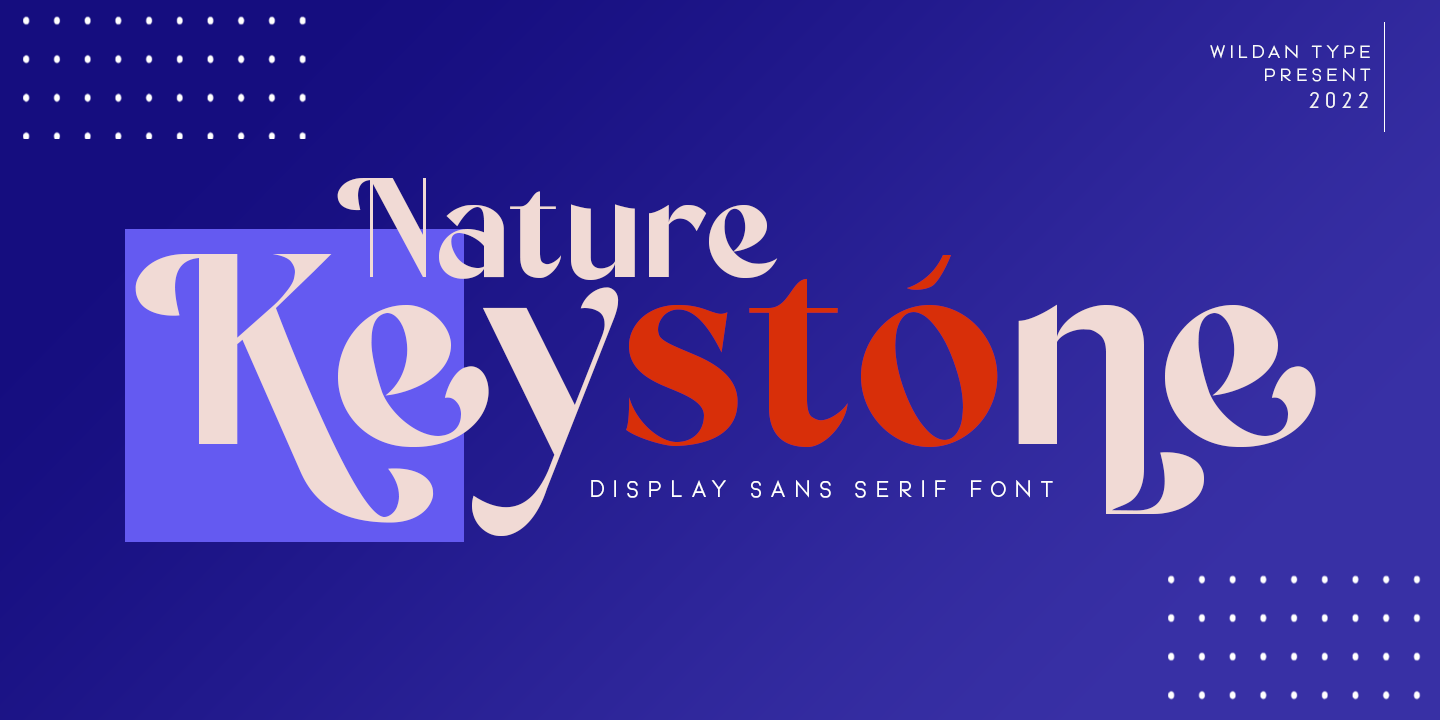
Nature Keystone Font is perfect for organic food packaging, eco-friendly brand identities, outdoor adventure gear, environmental campaign materials, botanical magazine layouts, sustainable fashion labels, national park signage, wildlife conservation posters, green technology companies, and natural wellness product branding.
Nature Keystone Font is exciting because it captures the authentic essence of the natural world through thoughtfully designed letterforms that evoke organic growth and environmental harmony, creating an immediate connection between brands and nature-conscious consumers. This remarkable typeface embodies the perfect balance between rustic charm and modern functionality, making it an essential tool for designers committed to sustainable and earth-friendly visual communications.
The Nature Keystone Font family includes diverse variations such as Regular, Bold, Light, Rough, Textured, Outline, Shadow, Condensed, Extended, Handwritten styles, and specialized organic decorative elements, providing complete design flexibility for any nature-inspired creative project.
Nature Keystone Font represents a revolutionary approach to eco-conscious typography, delivering authentic natural aesthetics for projects that celebrate environmental awareness and outdoor lifestyle. Its distinctive organic character structure makes it particularly effective for brands seeking to establish genuine connections with environmentally conscious audiences.
The earthy appeal of Nature Keystone Font makes it ideal for organic farms, eco-tourism companies, renewable energy firms, outdoor equipment manufacturers, environmental nonprofits, and sustainable lifestyle brands requiring authentic natural communication. Its grounded presence ensures memorable brand recognition among eco-conscious consumers.
Design professionals appreciate how Nature Keystone Font Free Download provides immediate access to premium earth-inspired typography that transforms conventional designs into compelling natural experiences. The font's comprehensive character set supports diverse environmental messaging while maintaining its authentic organic appeal.
Nature Keystone Font's advanced features include contextual alternates, natural ligatures, and organic styling options that enhance the font's environmental character. These eco-friendly elements enable designers to create powerful layouts that resonate with nature-loving audiences and outdoor enthusiasts.
The adaptability of Nature Keystone Font extends beyond traditional applications, proving equally effective for eco-friendly mobile apps, sustainable e-commerce platforms, environmental blog headers, green social media campaigns, and outdoor adventure content. Its scalable design maintains natural authenticity at any size.
For creative professionals championing environmental causes, Nature Keystone Font delivers the perfect combination of organic appeal and professional functionality. Its natural character combined with technical excellence makes it an indispensable resource for creating memorable visual communications that capture the authentic spirit of environmental stewardship and outdoor adventure in today's eco-conscious marketplace.